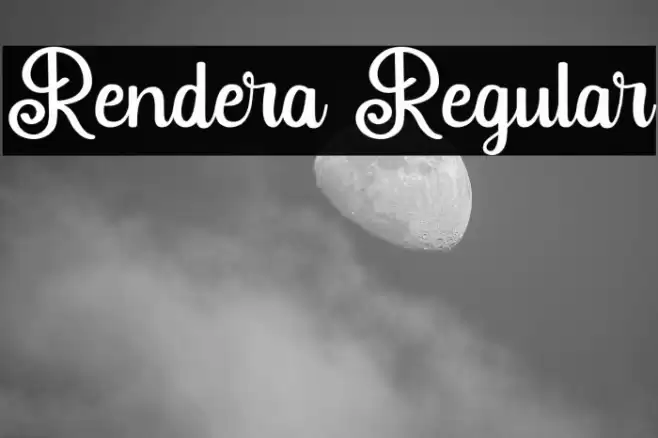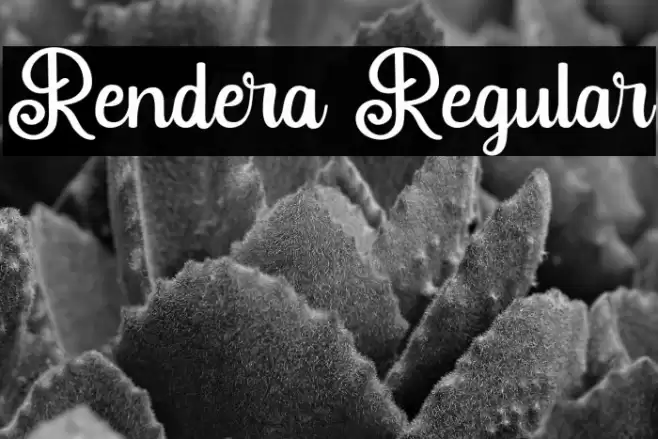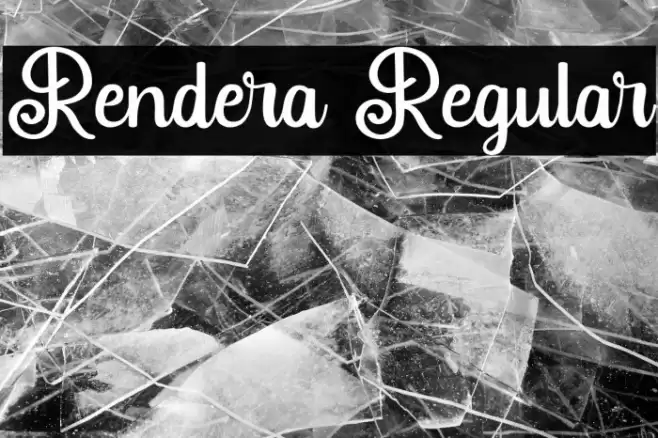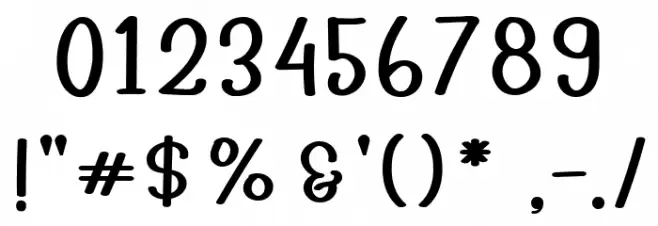
Rendera Regular Font
Rendera Regular Description
This font features a playful and whimsical design with a decorative flair. The uppercase letters are characterized by intricate curls and loops, adding a sense of elegance and creativity. The lowercase letters maintain a consistent style, with smooth curves and a slightly exaggerated stroke that enhances readability while maintaining a unique appearance. The numerals are bold and clear, matching the overall aesthetic of the alphabet. Special characters are thoughtfully designed to complement the font's style, making it suitable for a variety of creative applications.
A playful, decorative font with elegant curls and loops from Regular fonts.
- Font: Rendera Regular
- Proposed Projects: Ideal for greeting cards, invitations, playful branding, and decorative posters.
- Use Case: Headlines, Logos, Invitations